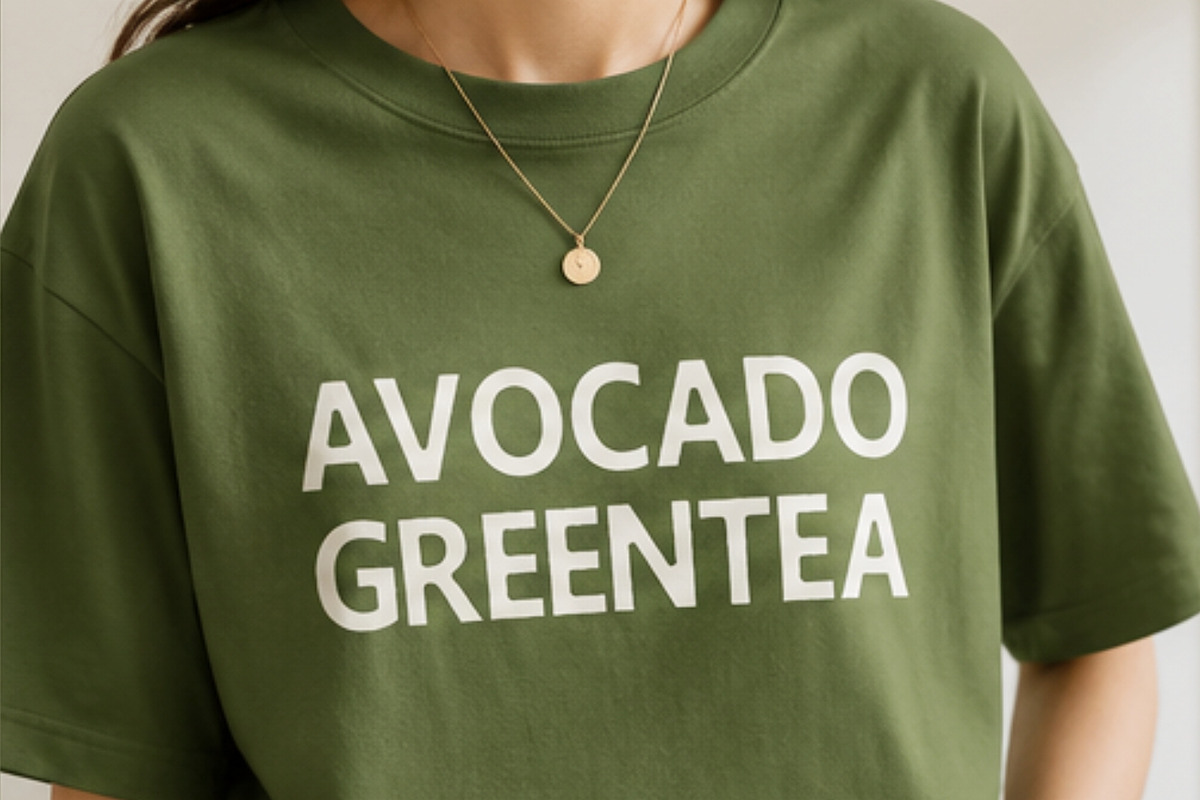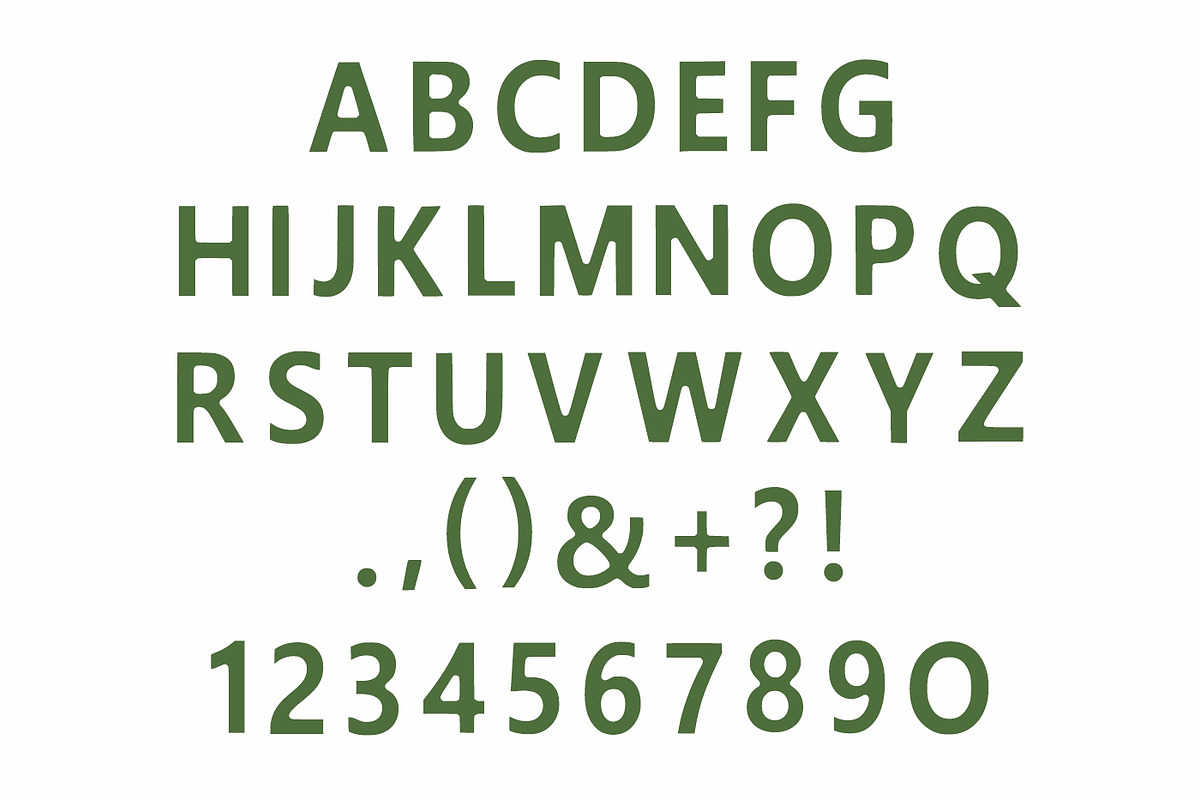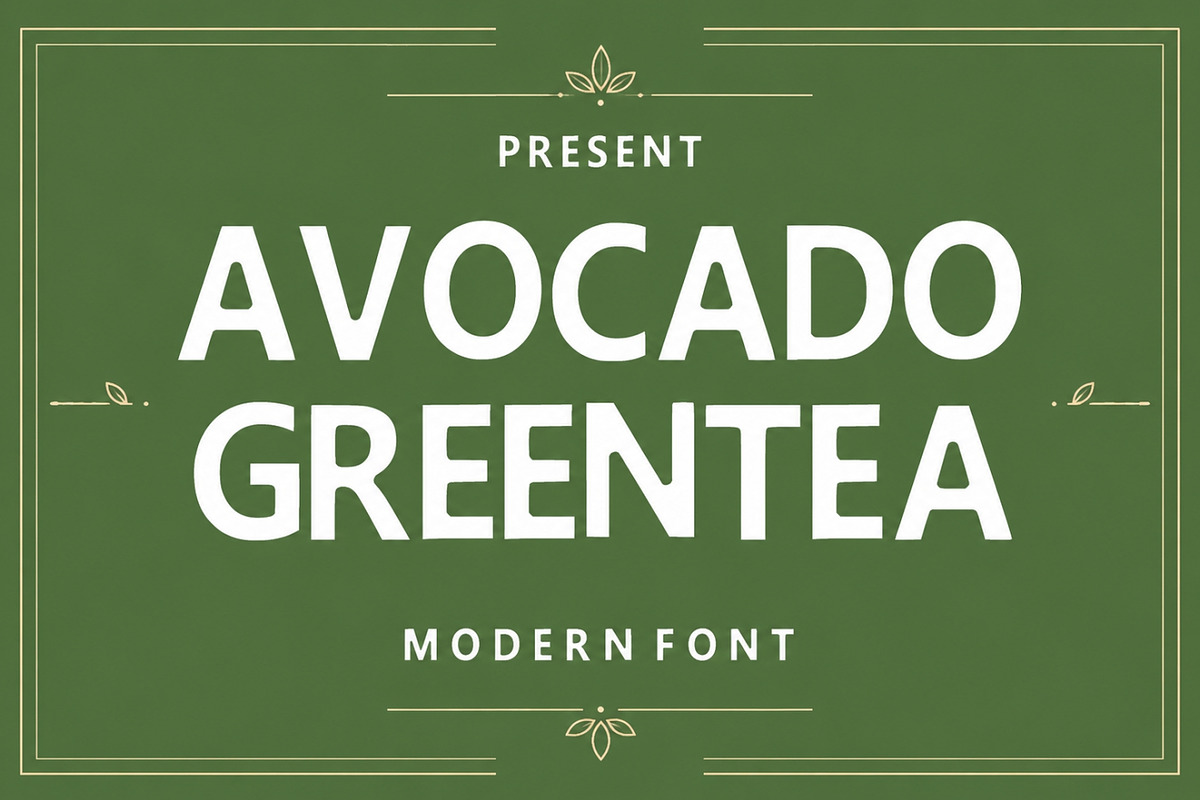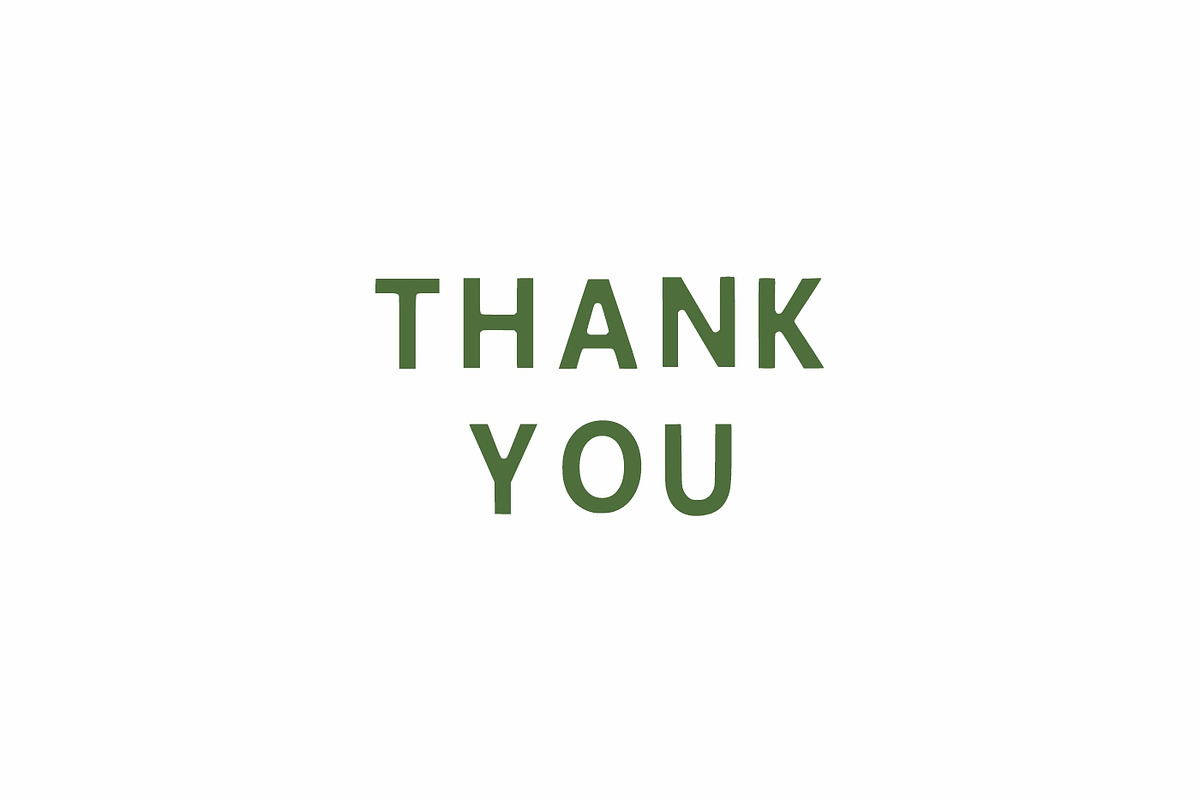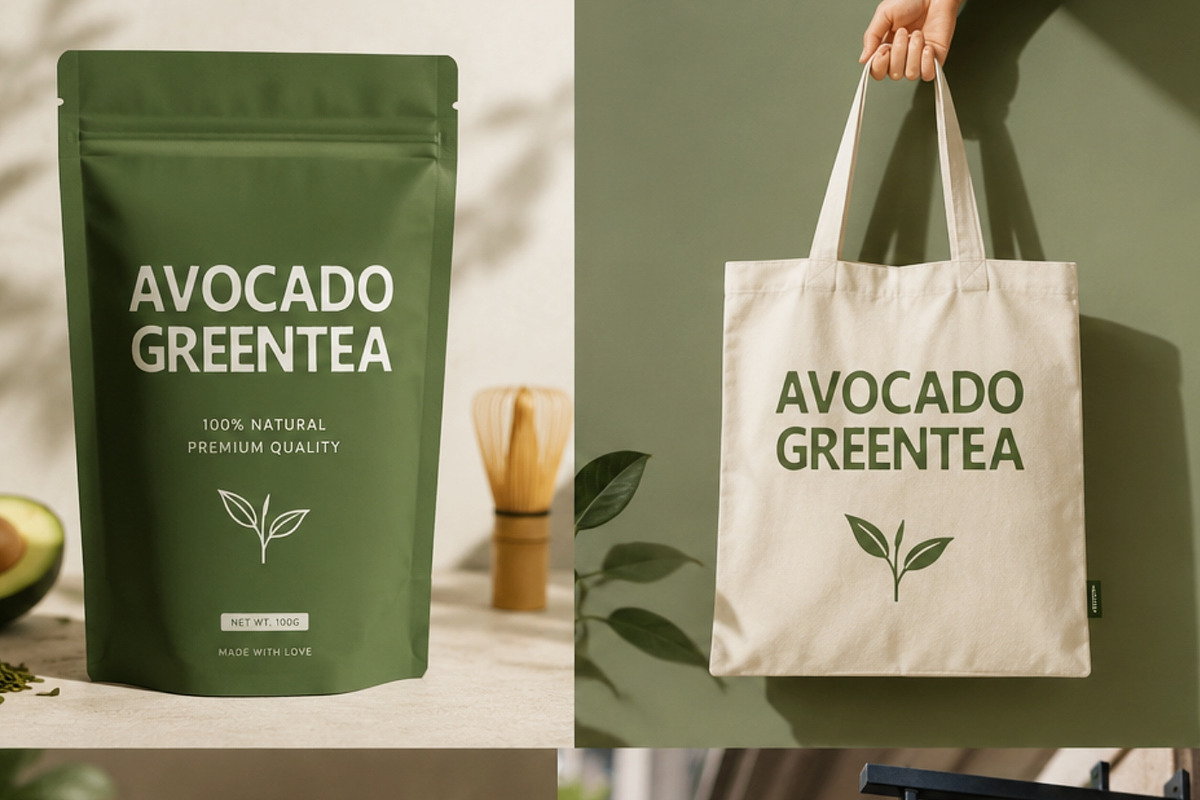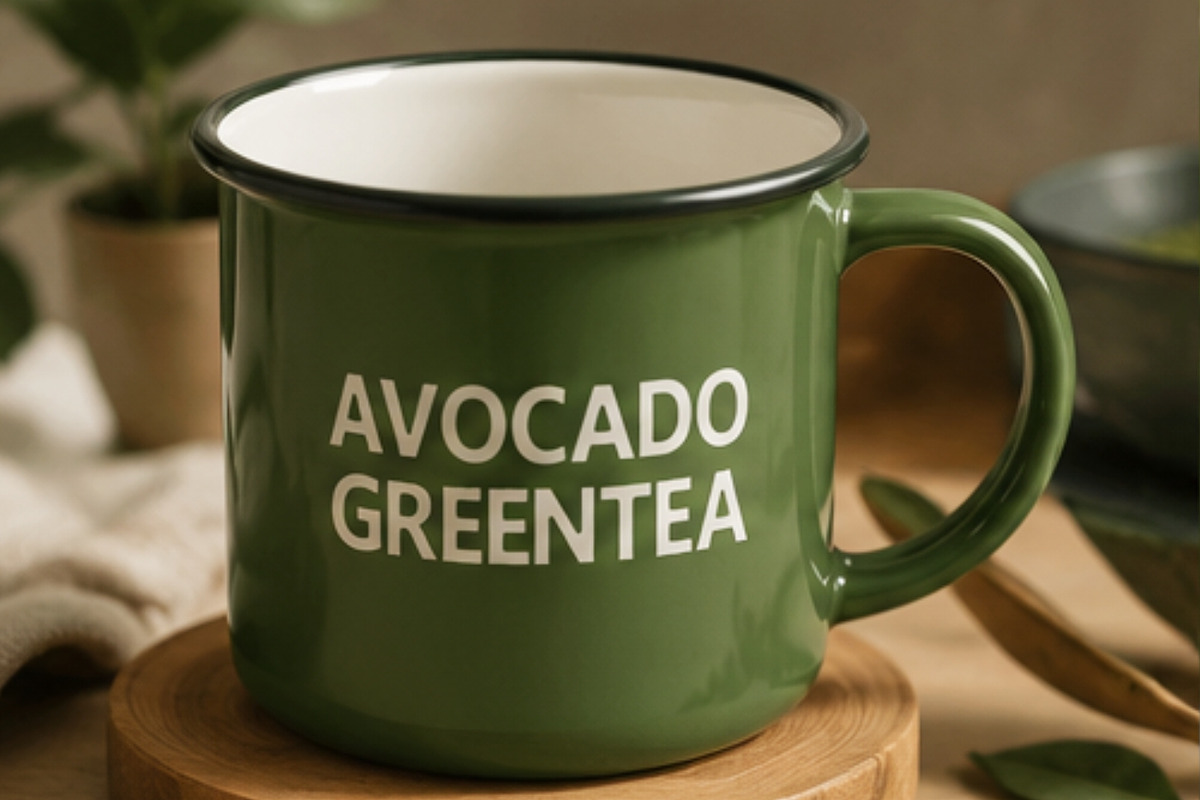
Avocado Greentea
Avocado Greentea is a clean and modern sans serif font designed with simplicity, elegance, and versatility in mind. Its smooth geometric letterforms and balanced proportions make it an excellent choice for branding, logos, packaging, social media graphics, editorial layouts, websites, and contemporary design projects.
This font offers exceptional readability while maintaining a stylish minimalist appearance. Whether you’re creating product branding, café menus, organic packaging, fashion labels, beauty products, business presentations, or eye-catching headlines, Avocado Greentea delivers a fresh and professional look.